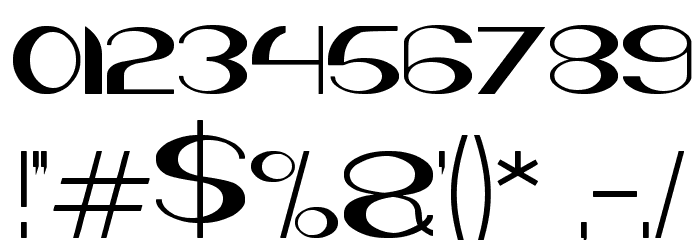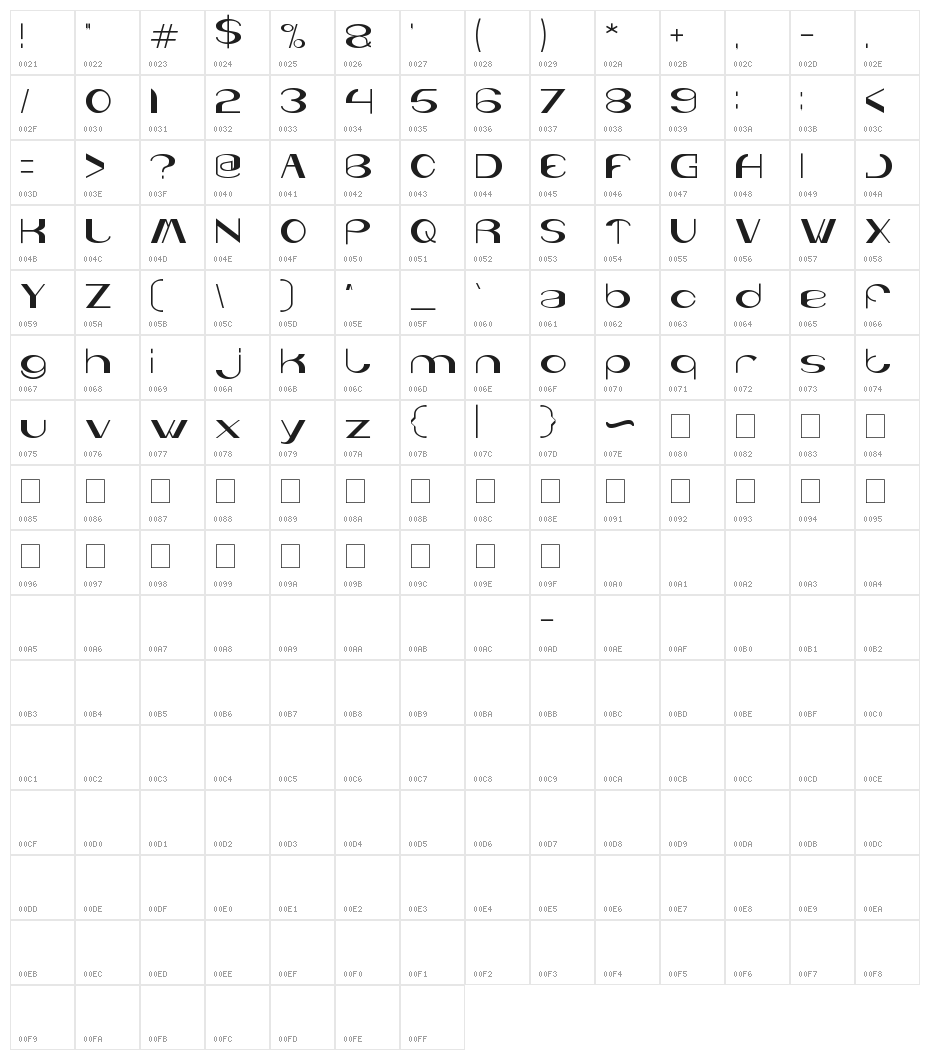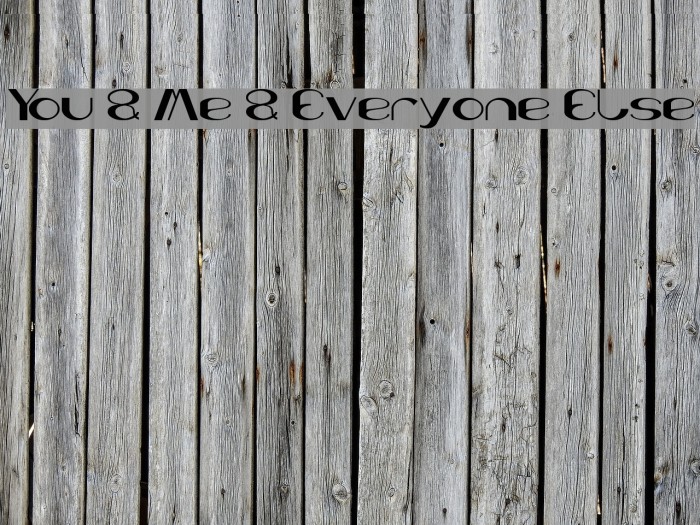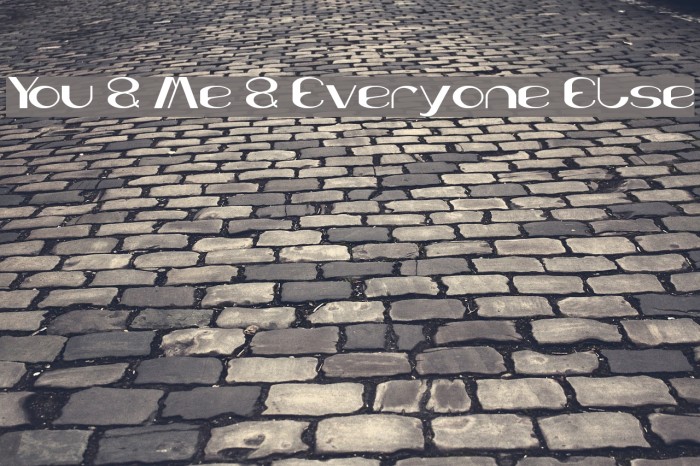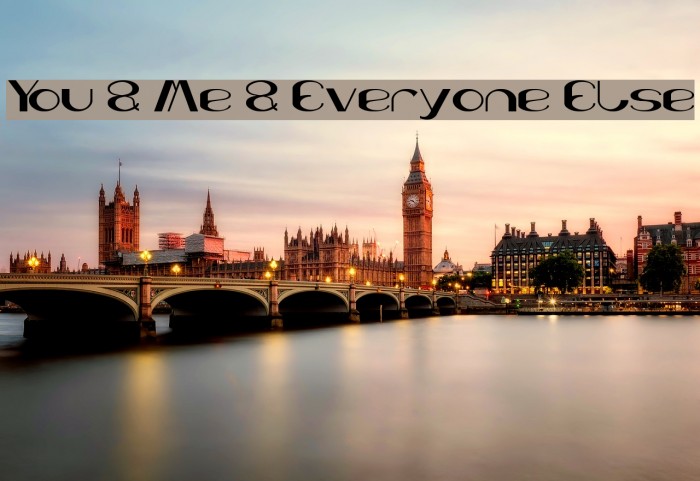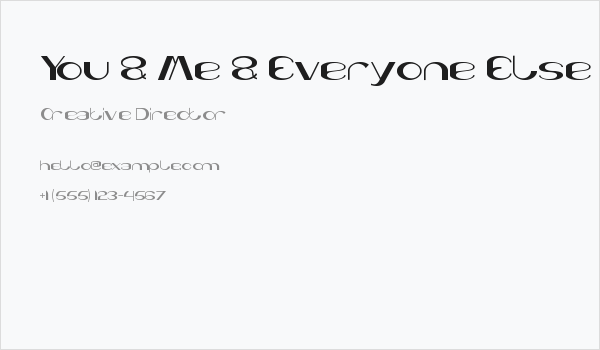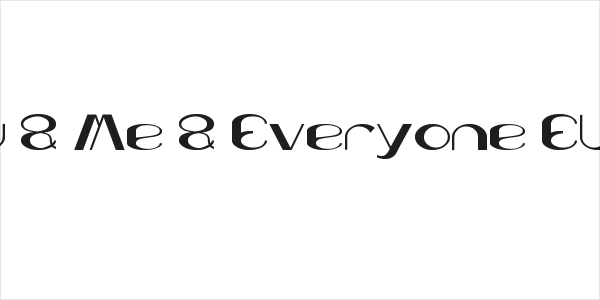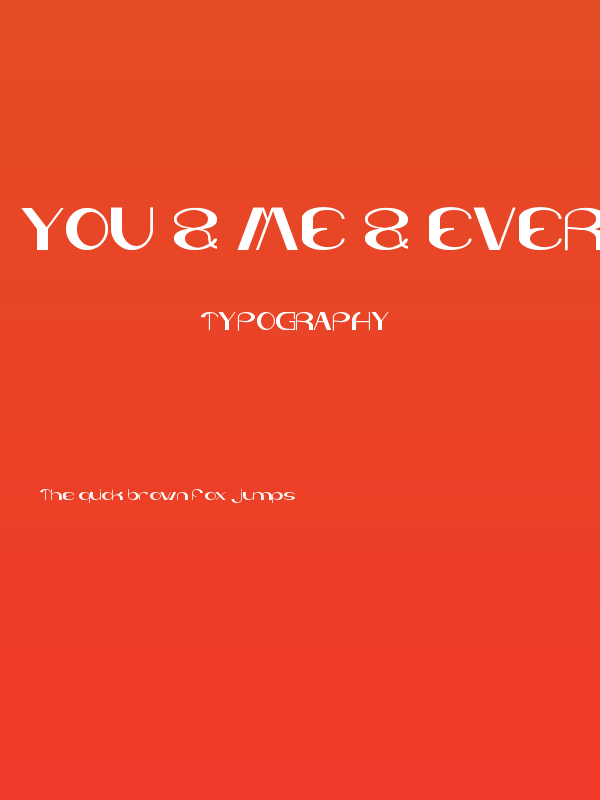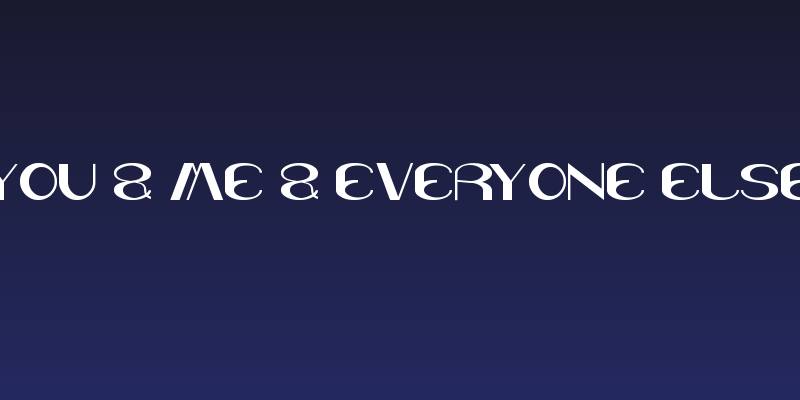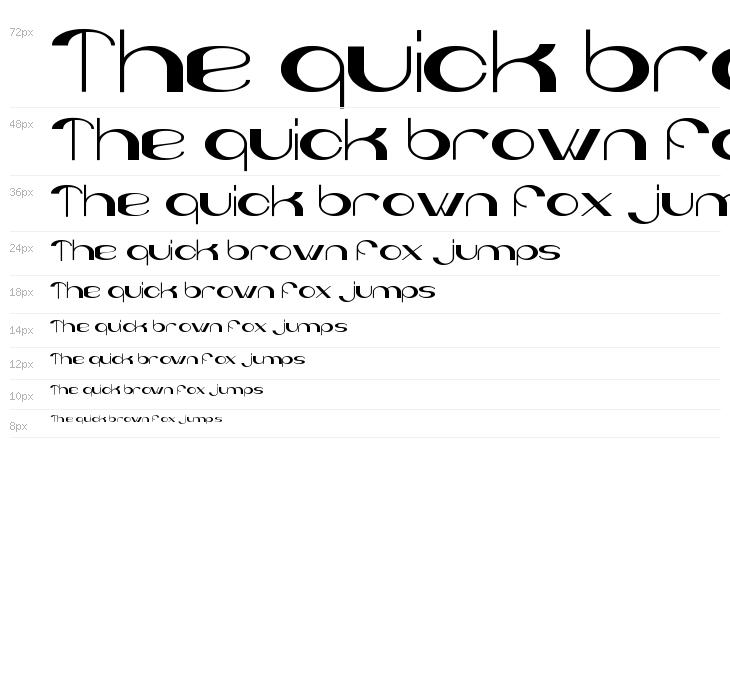
You & Me & Everyone Else Font
You & Me & Everyone Else Description
This font features a modern and futuristic design with a unique blend of geometric shapes and clean lines. The uppercase letters exhibit a bold and striking appearance, with some characters incorporating unexpected angles and curves that add a distinctive flair. The lowercase letters maintain a consistent style, offering a smooth and flowing look that complements the uppercase. Numbers and special characters follow the same design principles, ensuring a cohesive appearance across all glyphs. The font's overall style is both artistic and functional, making it suitable for a variety of creative applications.